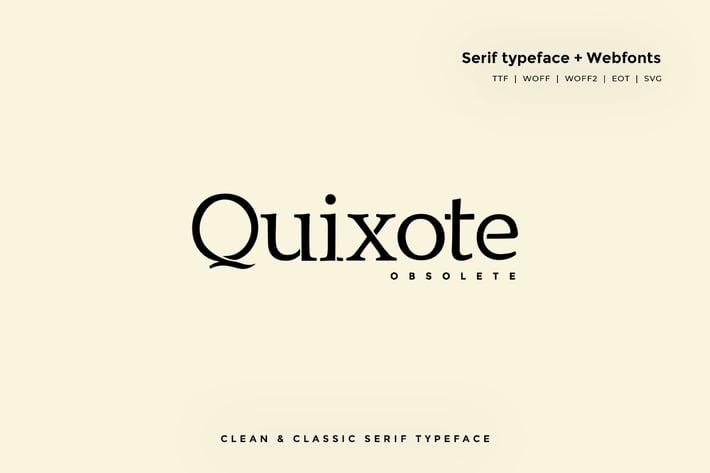
Quixote Obsolete - Classic Typeface + WebFonts
Quixote Obsolete Typeface
Another Classic serif typeface from Webhance, which delivers a remarkable unique typography style. The pack also includes OTF, TTF and Web Fonts (all EOT, SVG, TTF, WOFF included).